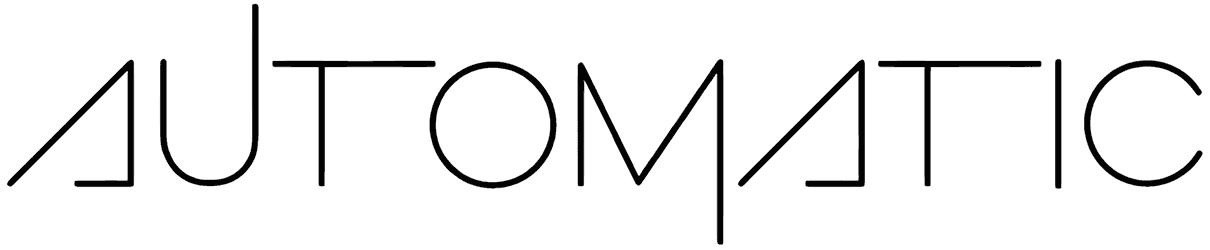
Automatic Font
Automatic font can be a versatile and timeless addition to your font library. Inspired by geometric shapes, this font has a clean and adaptable look that can play many roles in your projects. Narrow lines, sharp angles, and triangular shapes of this geometric font have detailed designs that can play a golden role in the implementation of logos and packaging writings.
Automatic is a thin, modern and minimalist display font. This font would be ideal for writing web designs, business cards, or pretty much anything else that requires a unique touch.